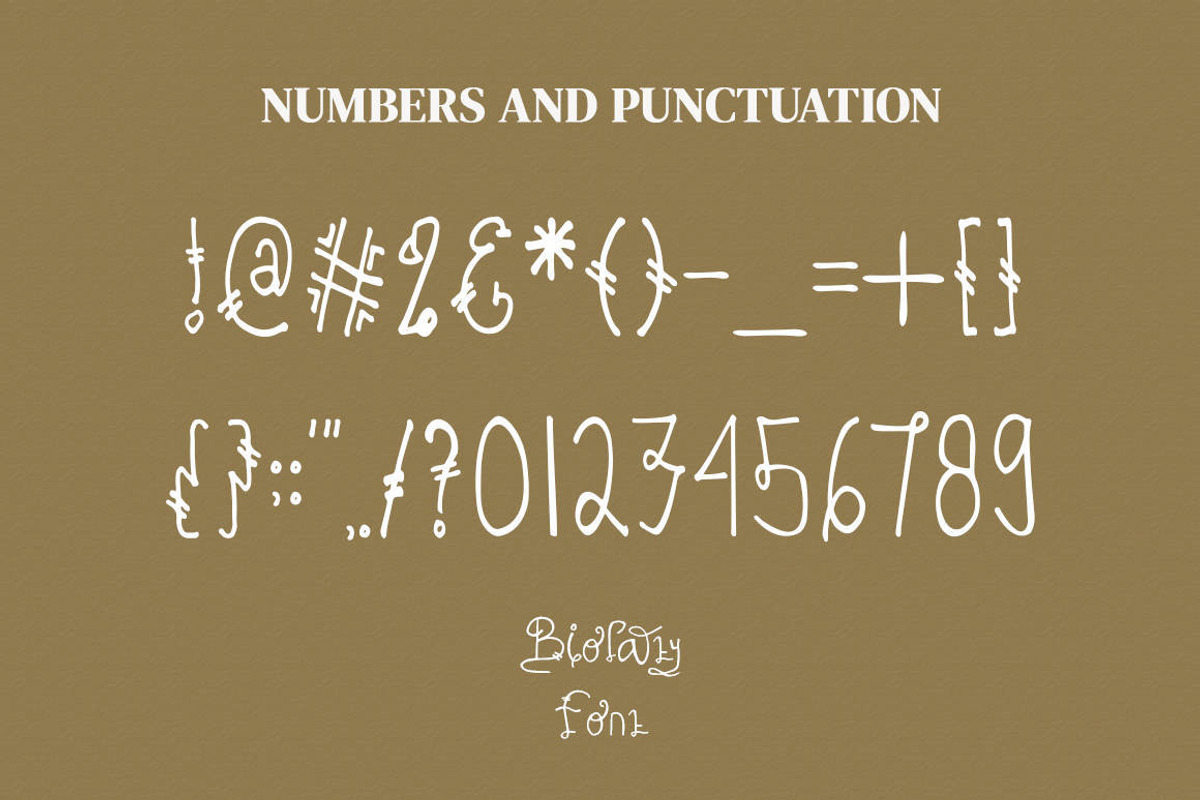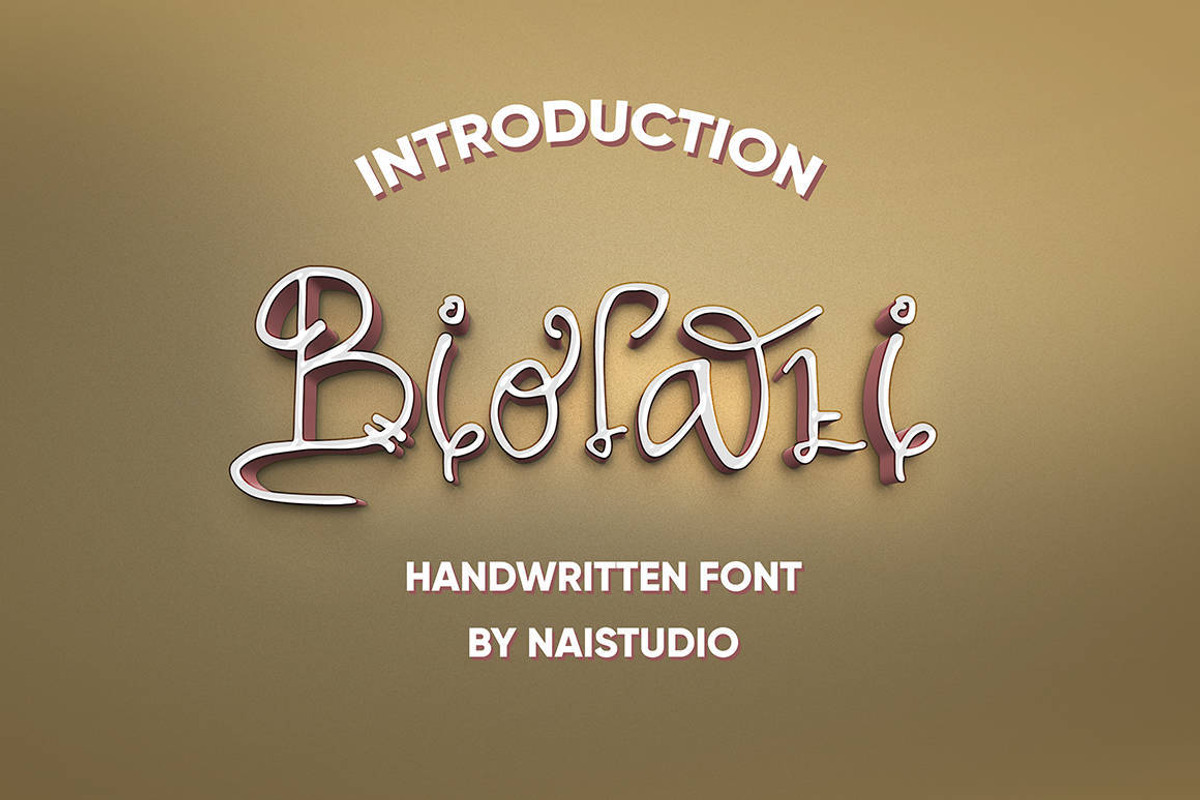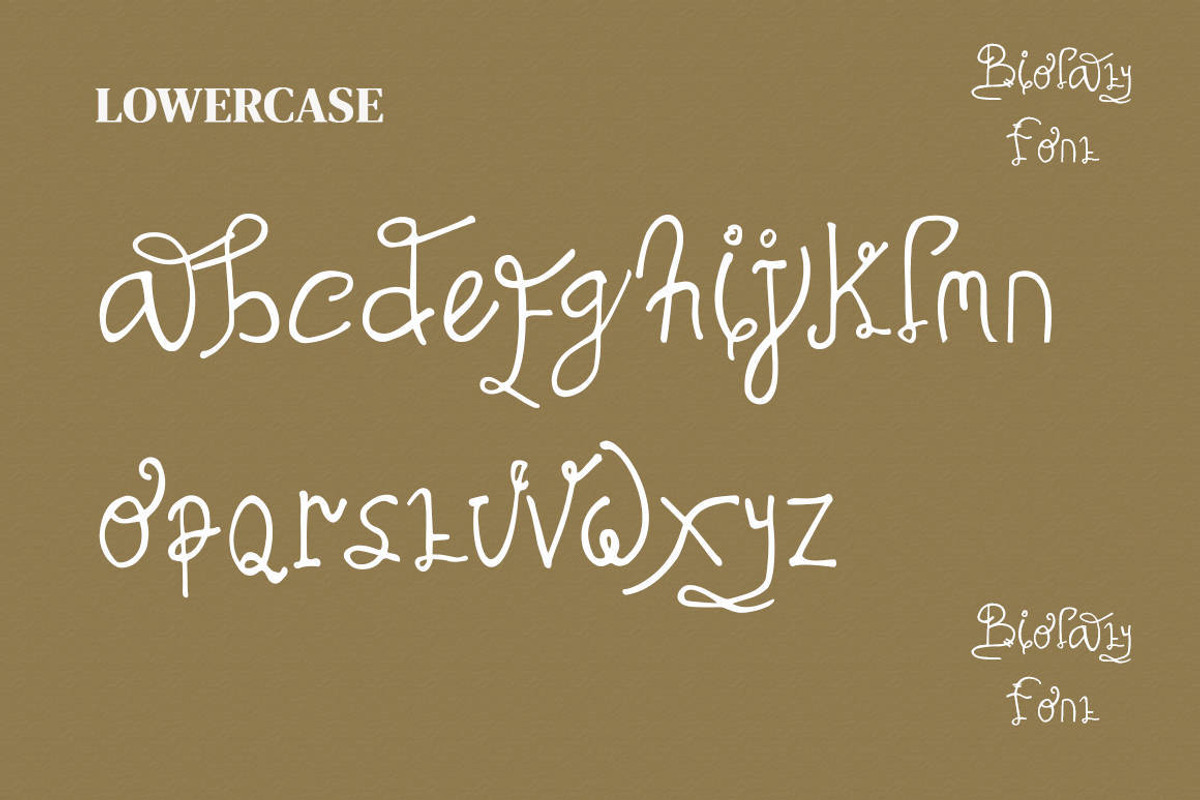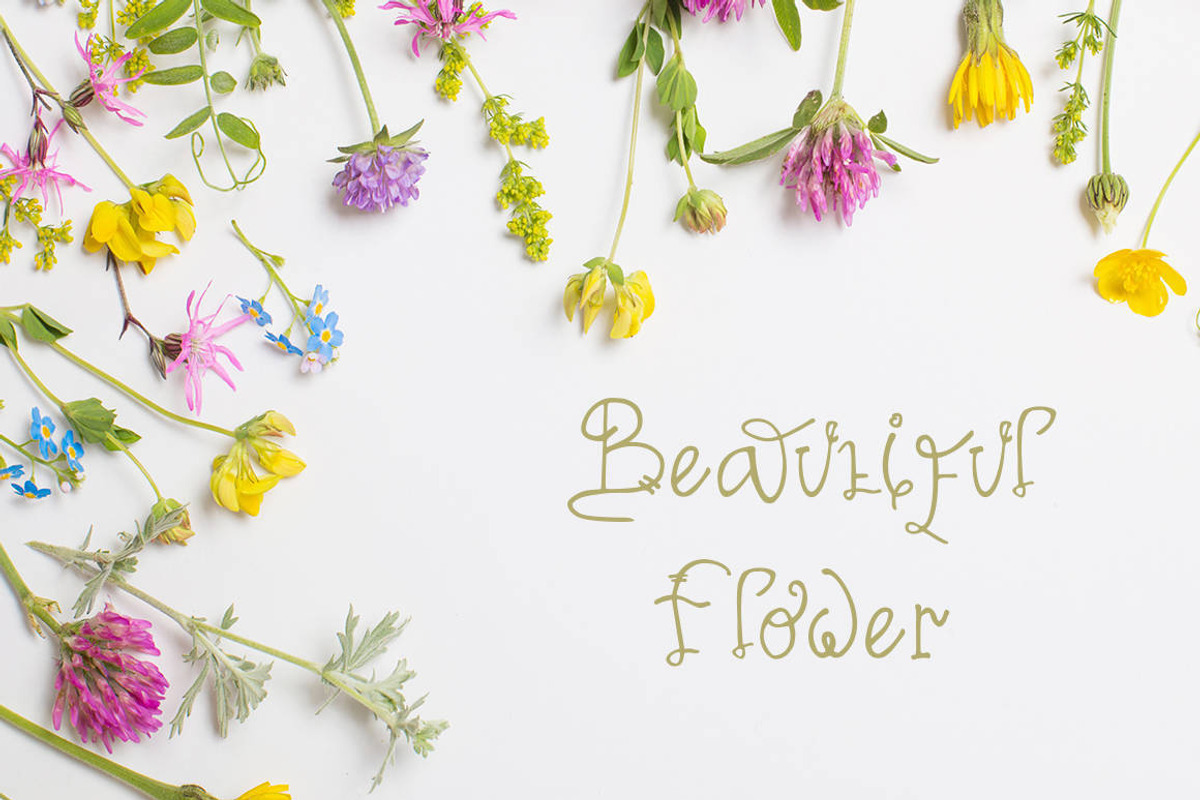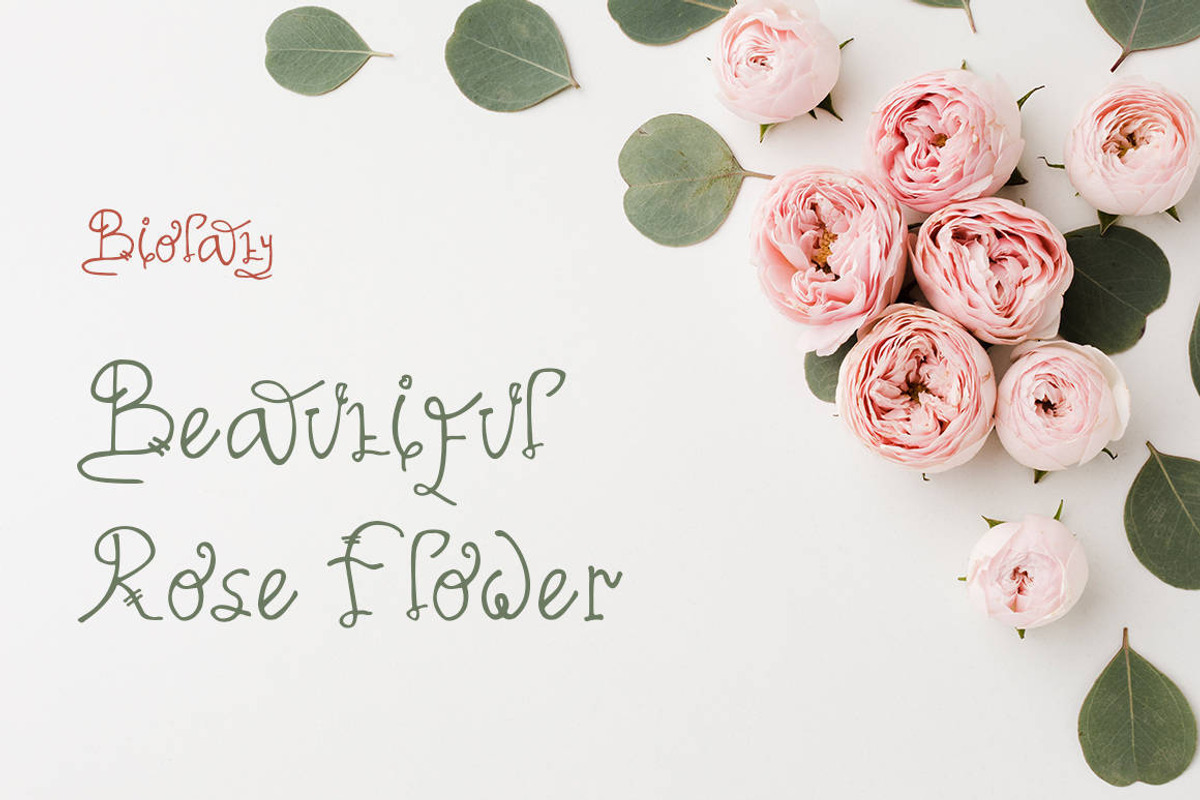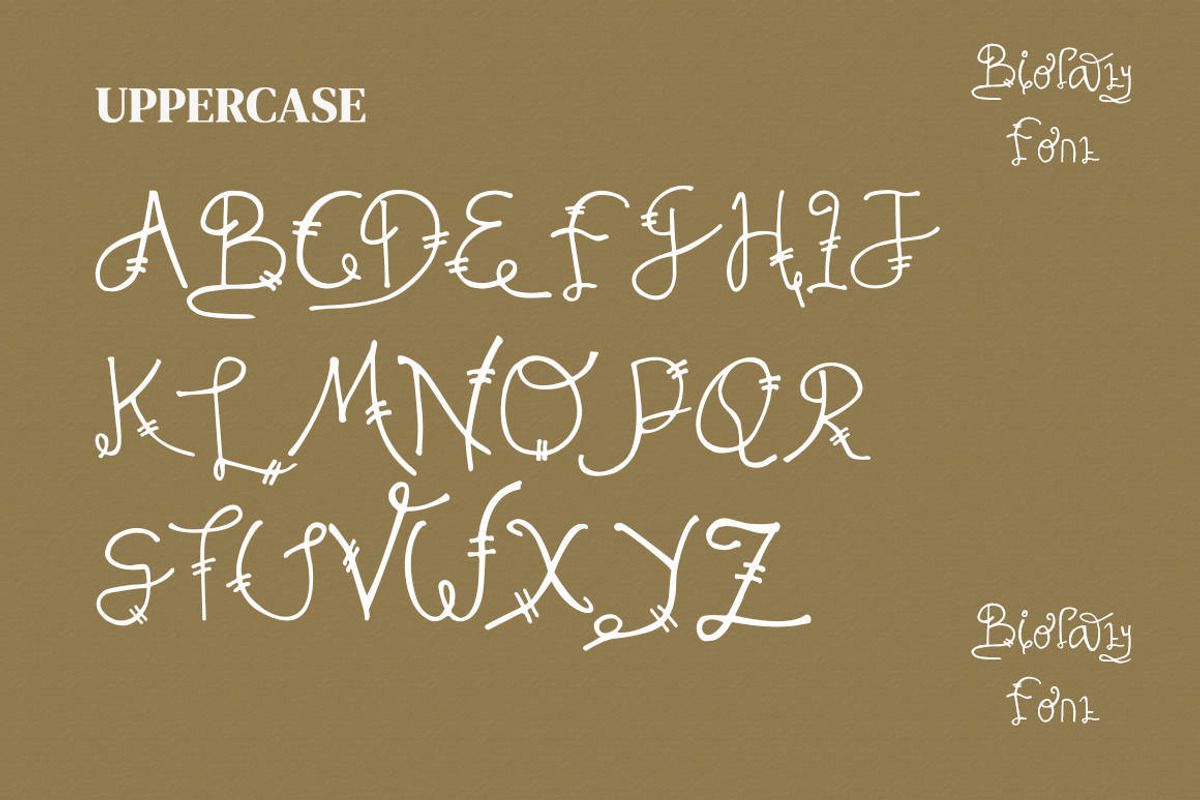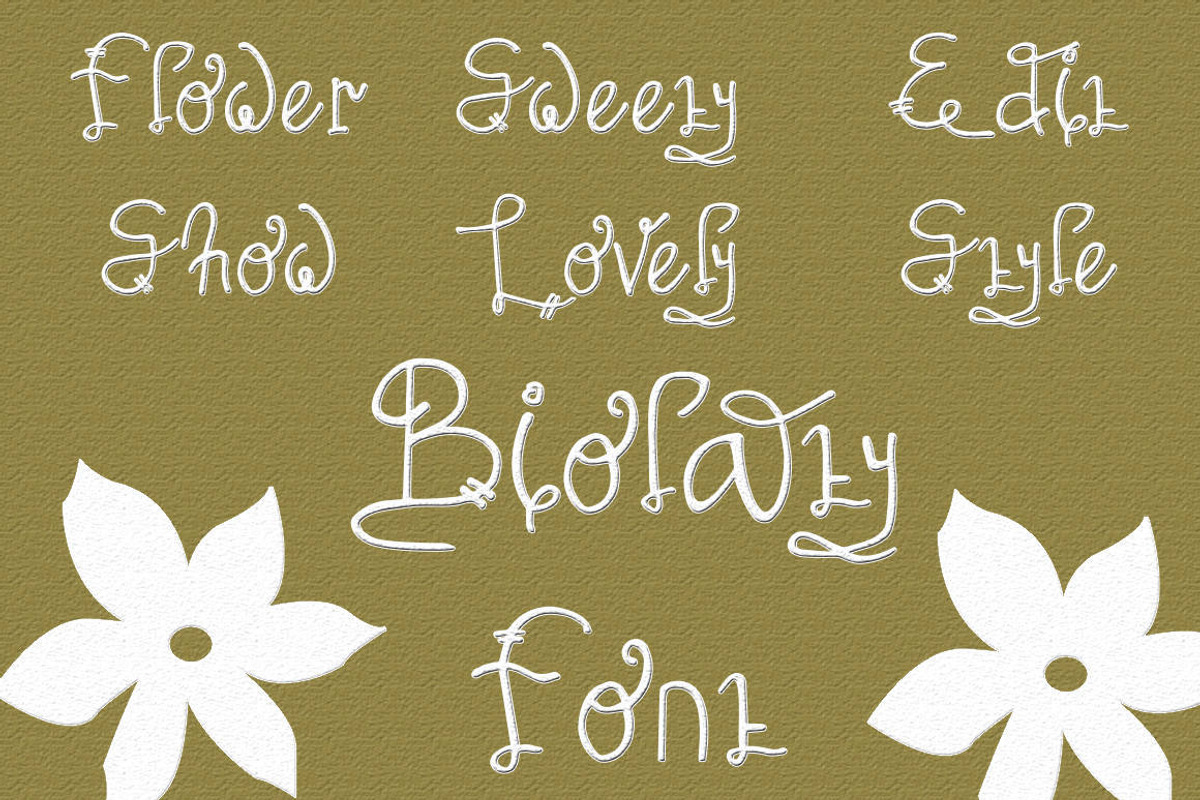
Biolati - Cute Handwritten Font
Introducing Biolati - Cute Handwritten Font
Biolati is a delicate, elegant and flowing handwritten font. It has beautiful and well balanced characters and as a result, it matches a wide pool of designs. Add it to your most creative ideas and notice how it makes them come alive!